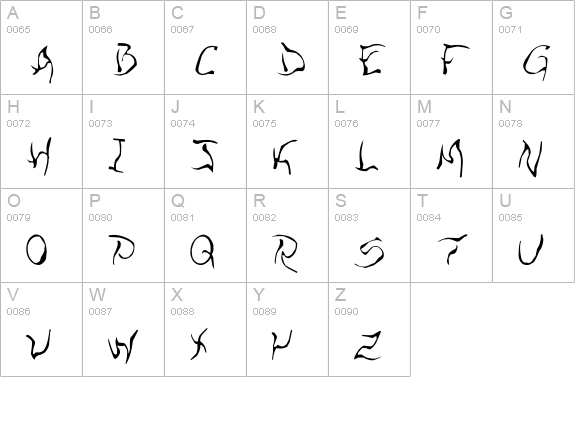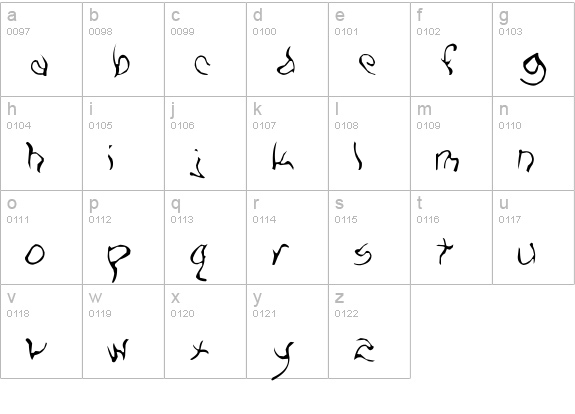
Zill O Wisp font is a whimsical and playful typeface that exudes charm and creativity. With its elegant curves and unique design, this font is perfect for adding a touch of magic to your projects. Whether you're working on a branding design, invitations, or any creative project, Zill O Wisp font is sure to make a statement. The best part? Zill O Wisp font is available for free download at FontsMarket.com. You can easily access this enchanting font and incorporate it into your designs without any cost. Don't miss out on the opportunity to enhance your projects with the captivating Zill O Wisp font - download it for free today!